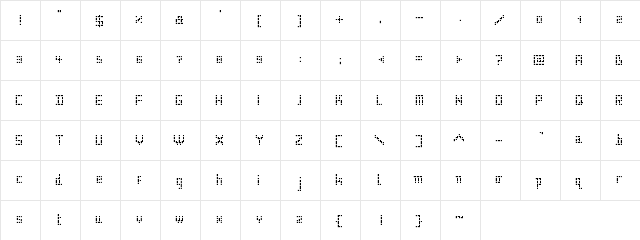
Noob Regular
Design Context for Noob Typeface
Noob is a composed and adaptable typeface that performs quietly and consistently across a wide range of design contexts.
Pro Tip: Use Noob in both headline and body roles to test its range before committing to a single application.